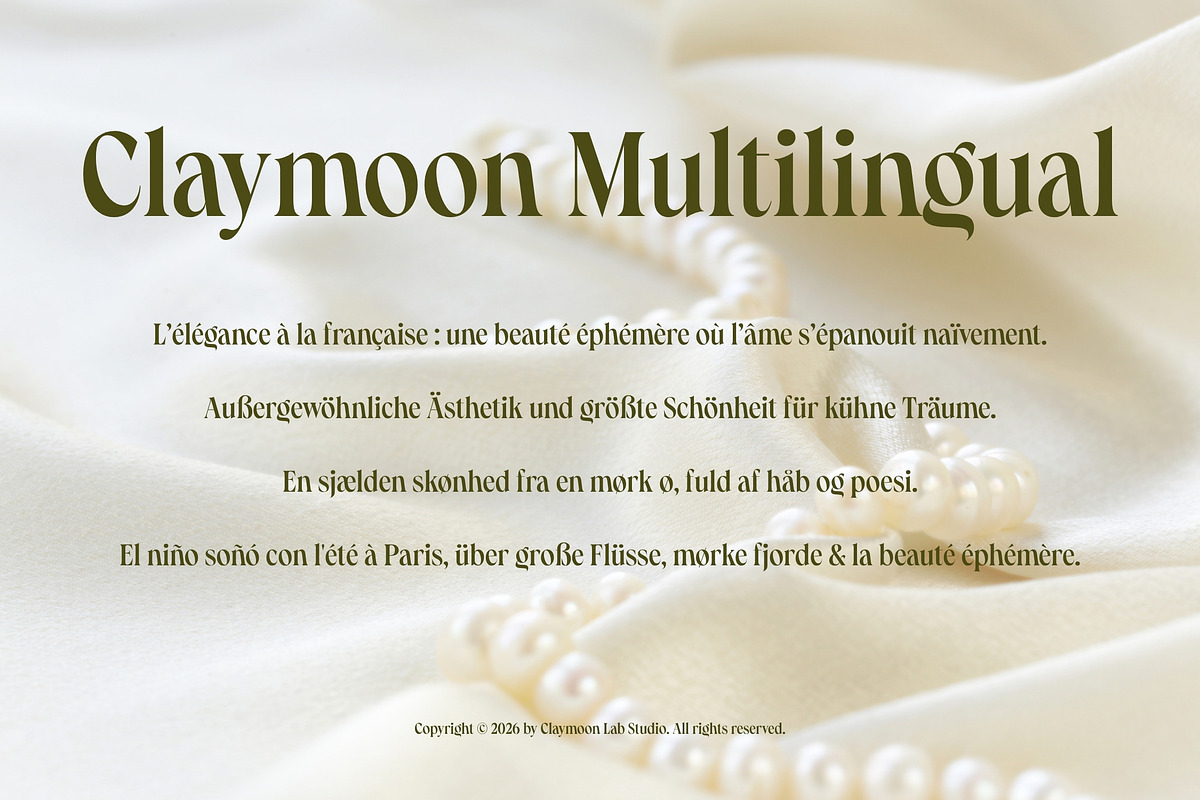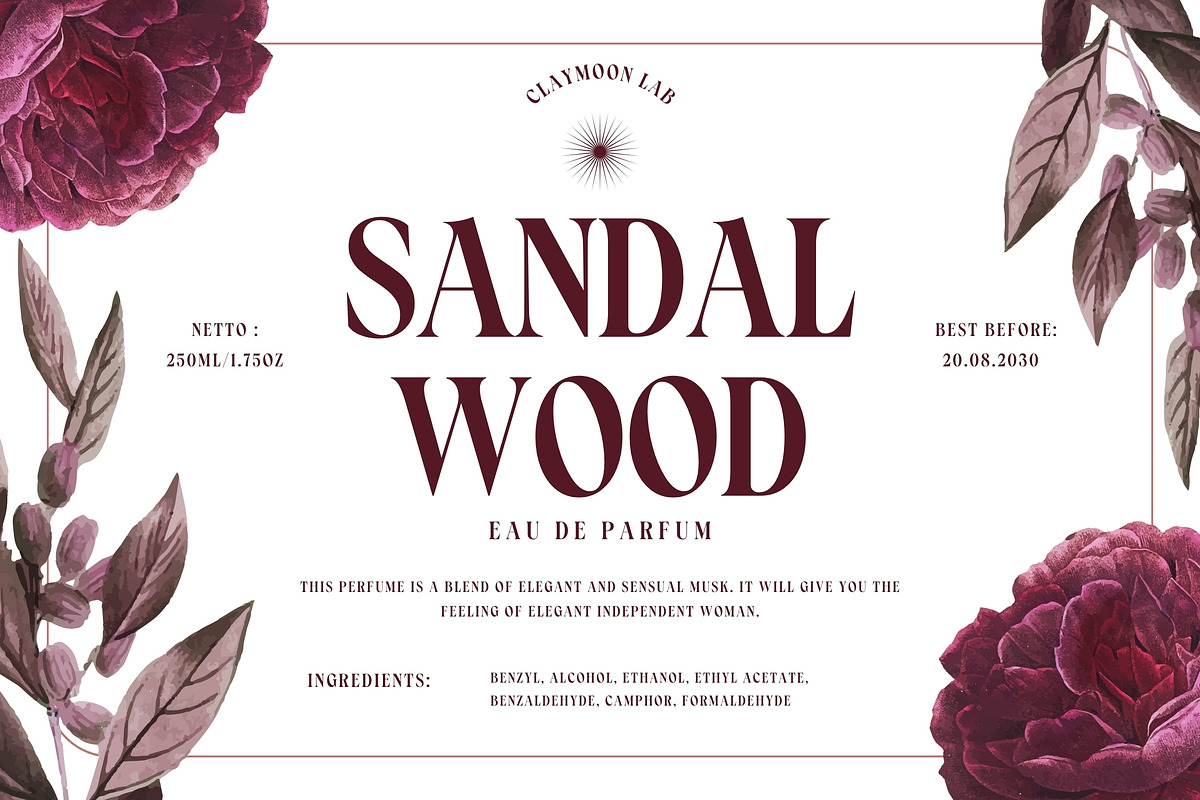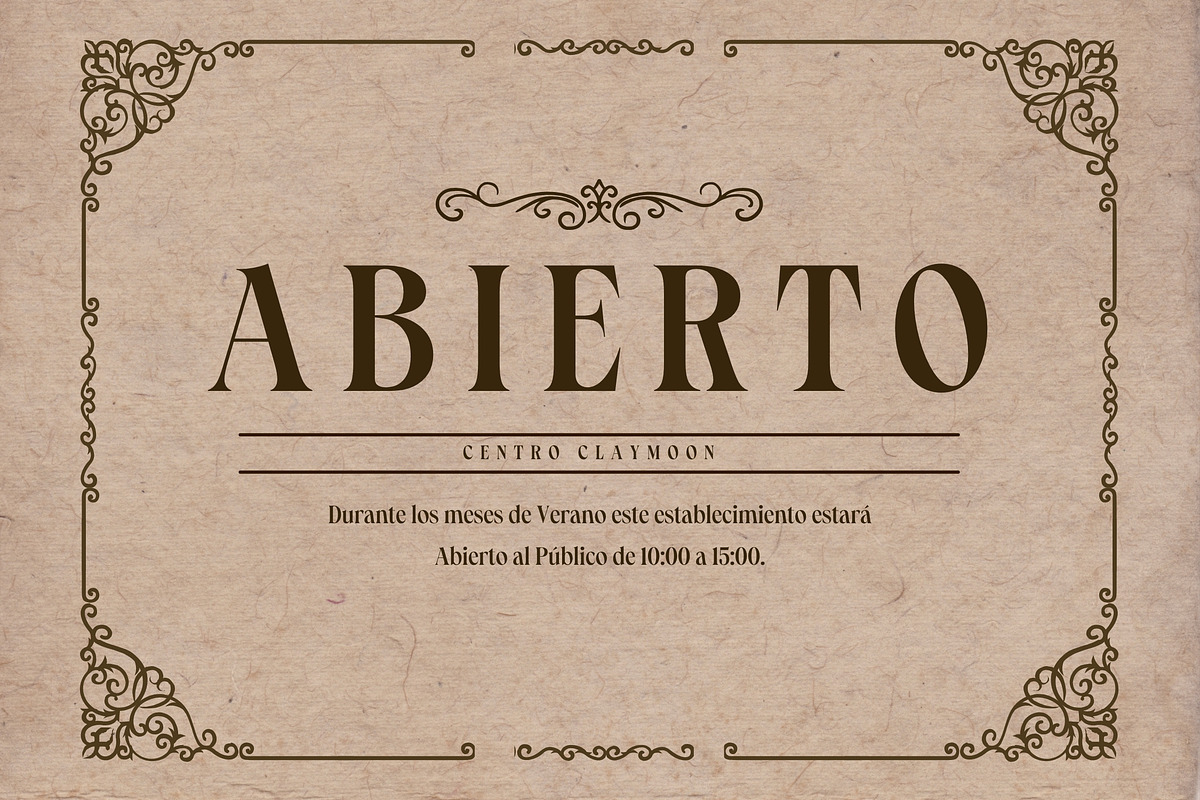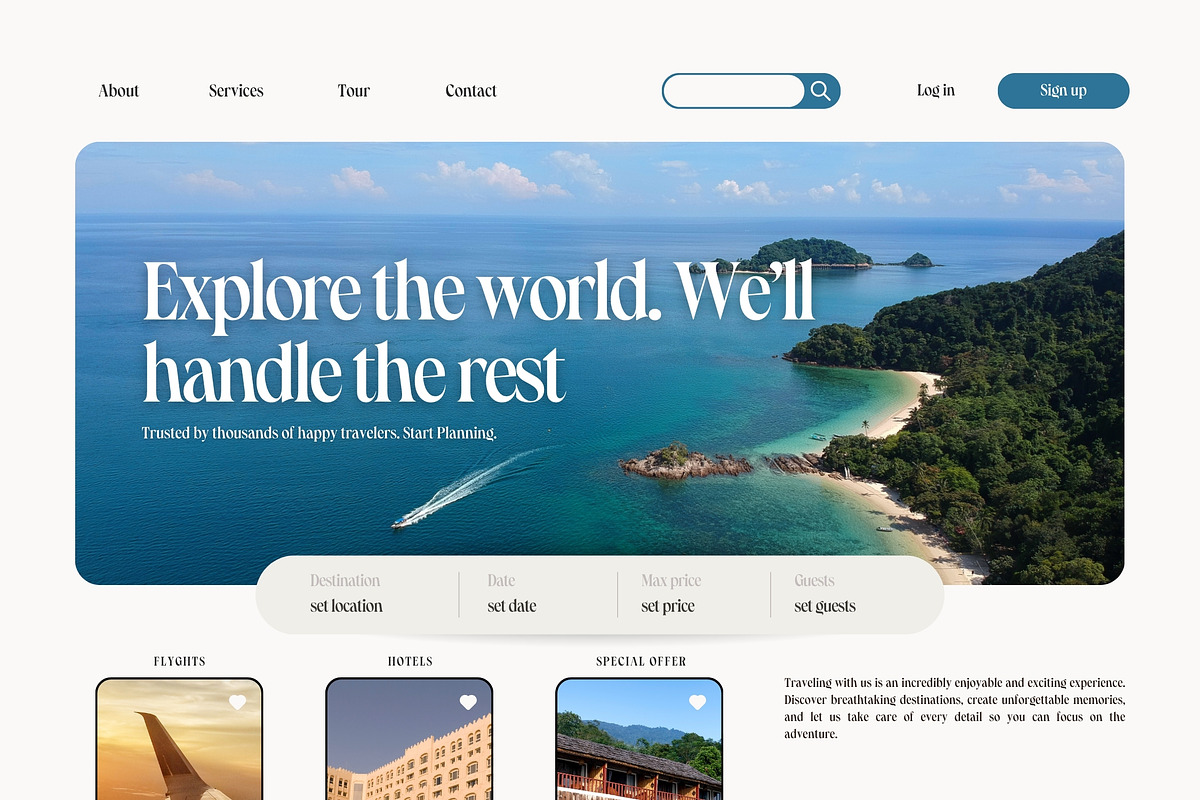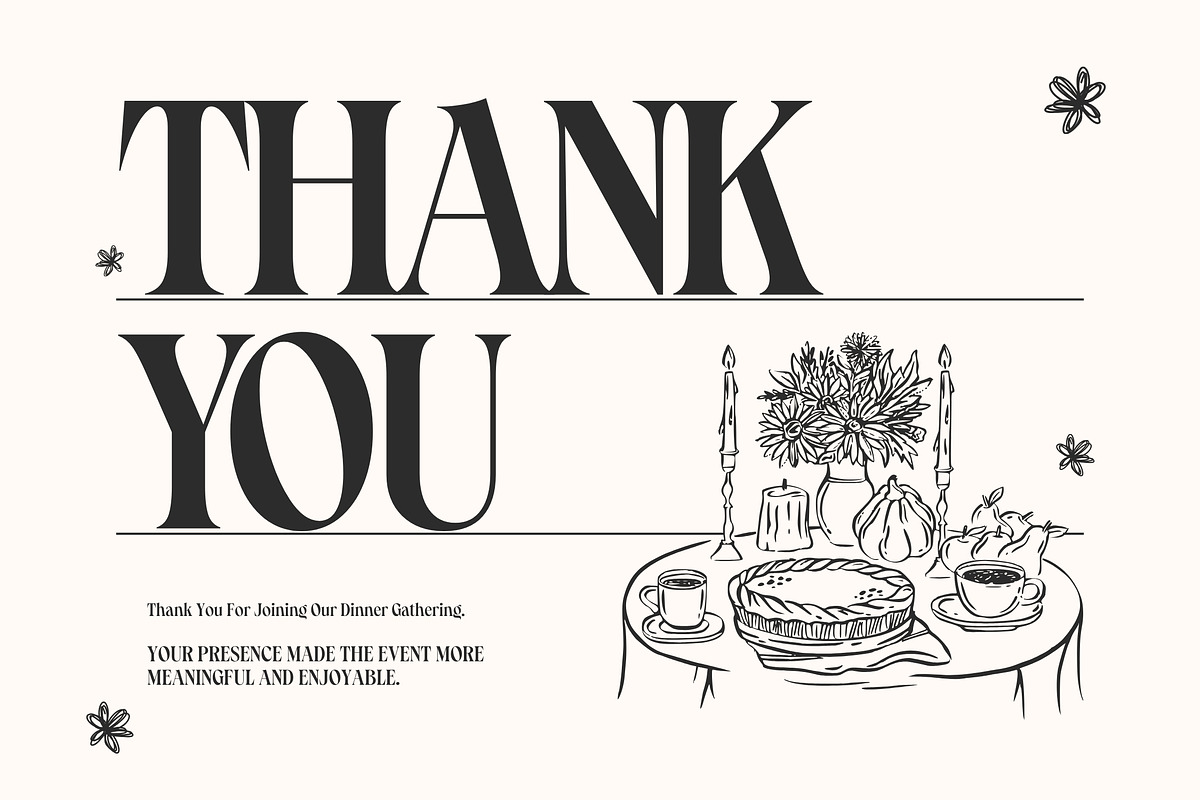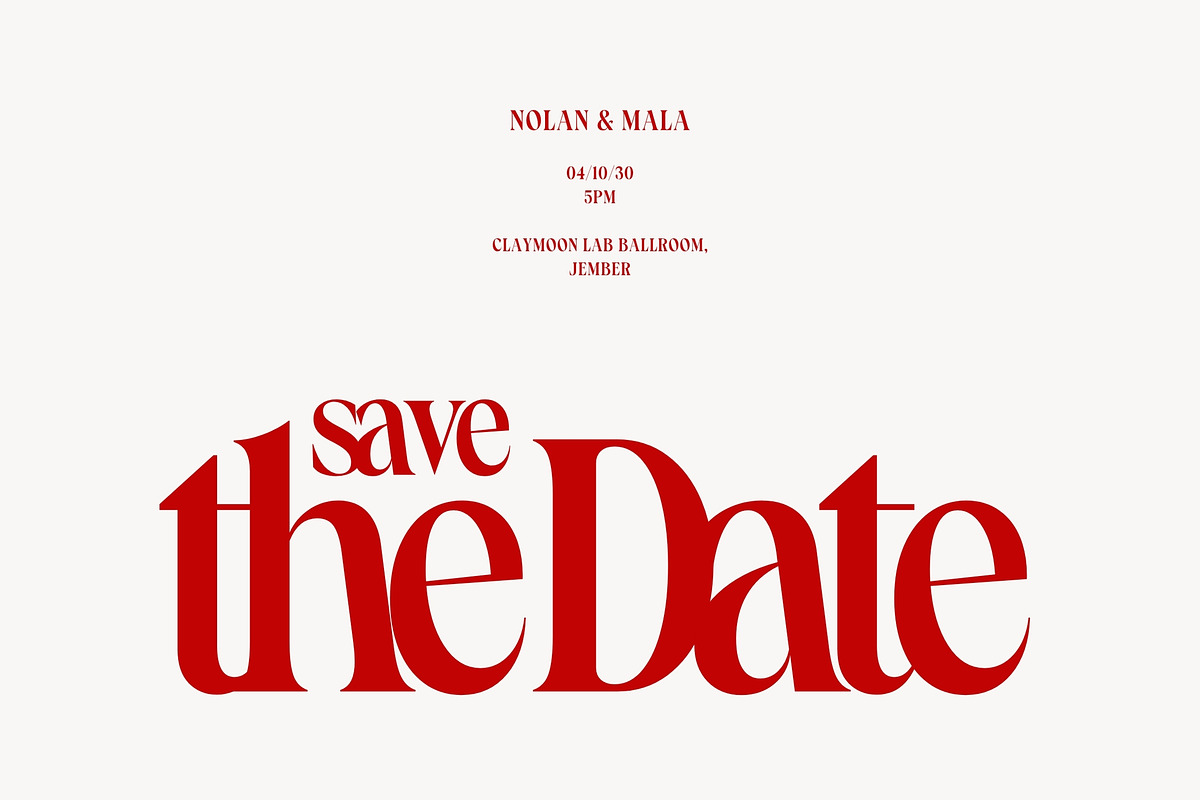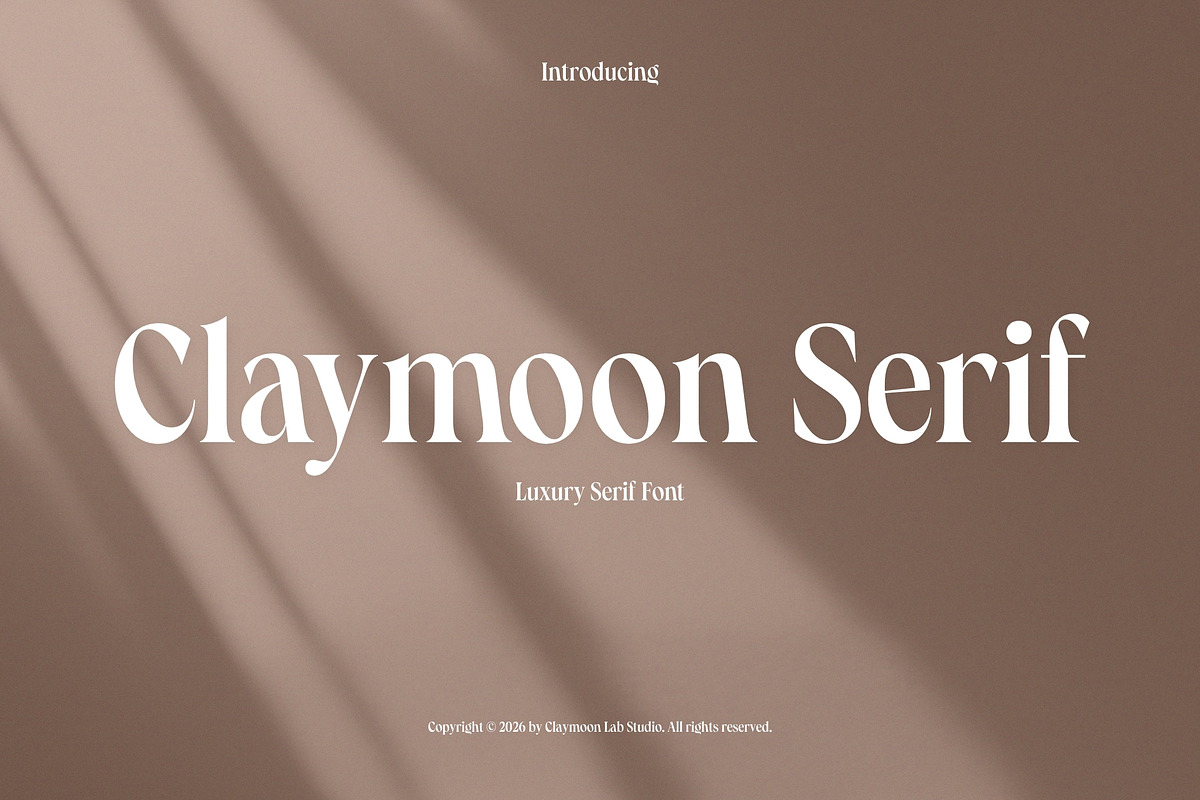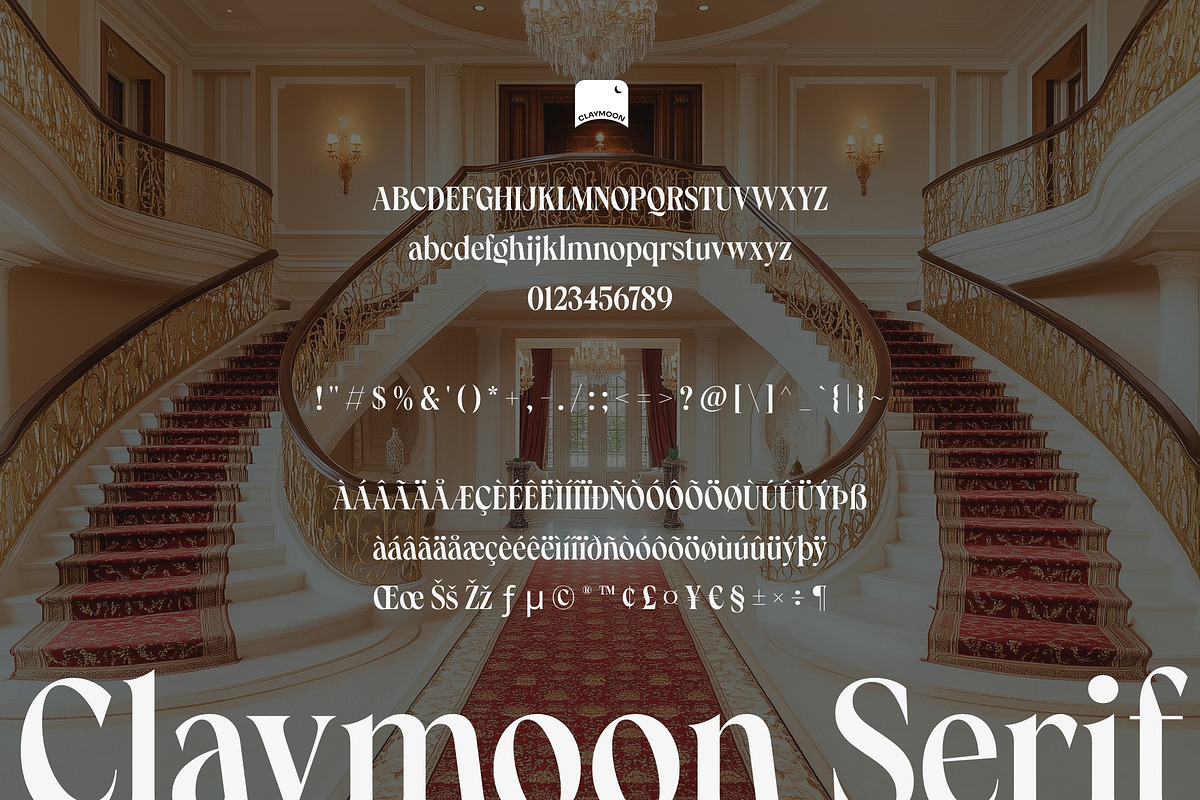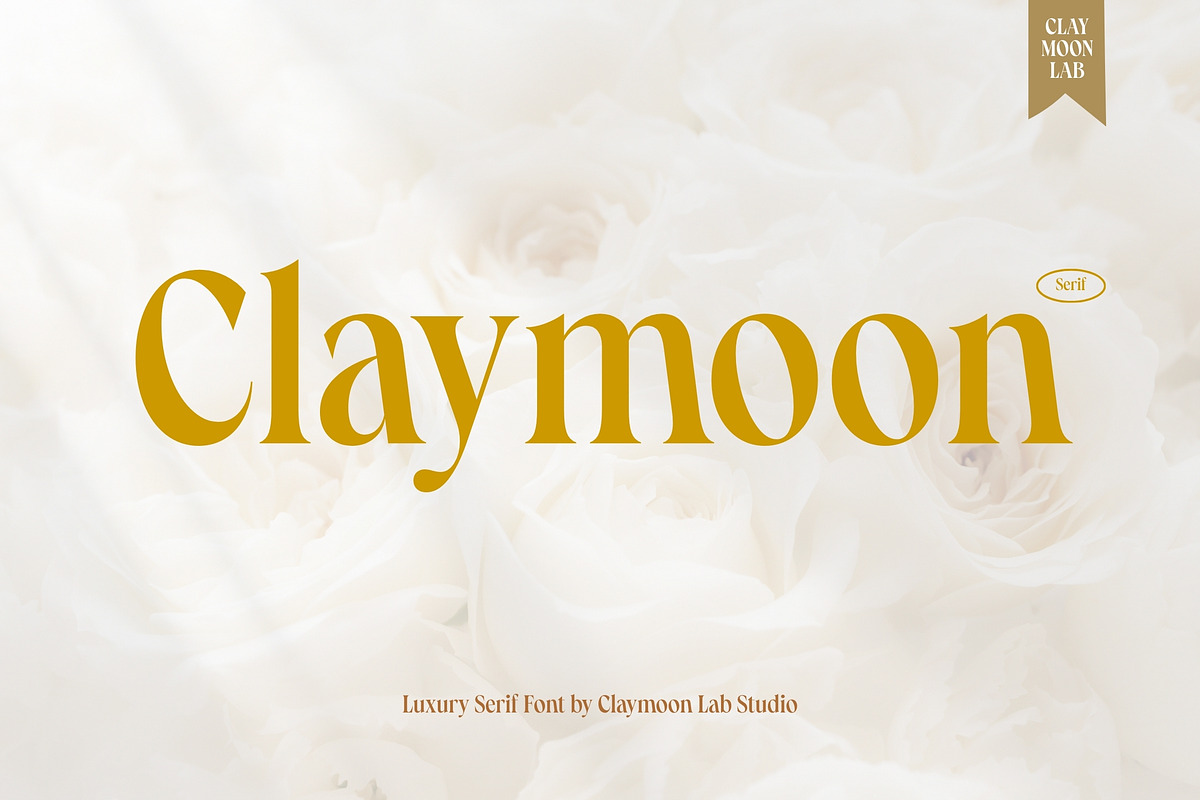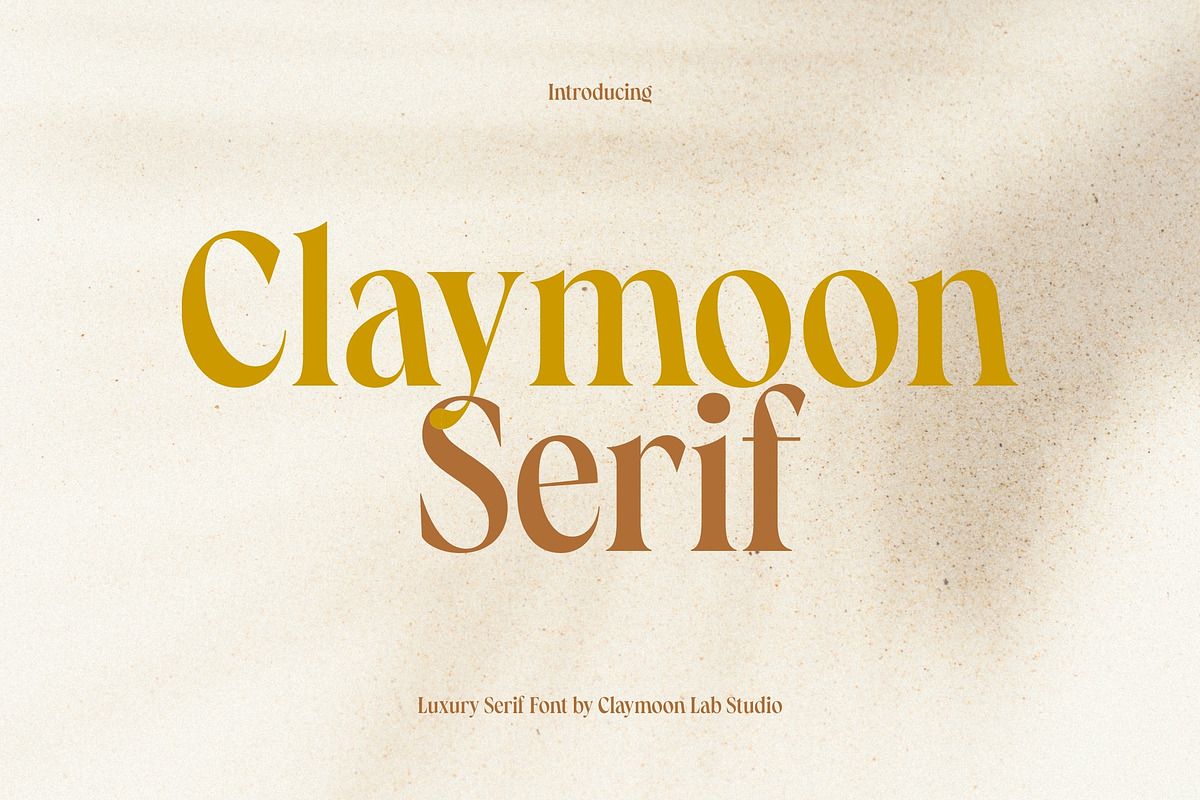
Claymoon Serif — Luxury Elegant Font
Claymoon Serif — Luxury Elegant Serif Font
Introduce a new standard of typographic refinement with Claymoon Serif, a high-contrast luxury serif typeface designed for creatives who demand sophistication without compromise. Featuring dramatically tapered strokes, gracefully curved terminals, and an elevated x-height that commands presence at any scale, Claymoon Serif carries the quiet confidence of a typeface born for the finest creative applications.
The carefully balanced contrast between hairline thins and bold thick strokes creates a dynamic visual rhythm that feels simultaneously timeless and contemporary — equally powerful as a towering display headline or refined body text in editorial compositions. Whether gracing the cover of a luxury publication, anchoring a high-end brand identity, or setting the tone for an intimate event invitation, Claymoon Serif performs with unwavering elegance.
Full Character Set: Uppercase, lowercase, numerals, punctuation, and an extensive range of special symbols.
Multilingual Support: Broad extended Latin coverage including French, German, Spanish, Danish, and more — ideal for international projects.
Perfect For These Projects:
Branding & Logo Design: Crafting luxury wordmarks, logotypes, and sophisticated brand identities for premium products and services.
Wedding & Event Design: Setting an elevated tone for wedding invitations, save the dates, ceremony programs, and celebration stationery.
Editorial & Publication Design: Composing stunning magazine covers, book titles, editorial spreads, and digital publication headers with refined typographic presence.
Packaging & Label Design: Developing premium product labels, fragrance packaging, cosmetic branding, and artisan product identities with timeless appeal.
UI & Web Design: Applying high-end serif typography to luxury website headers, landing pages, and digital brand experiences.